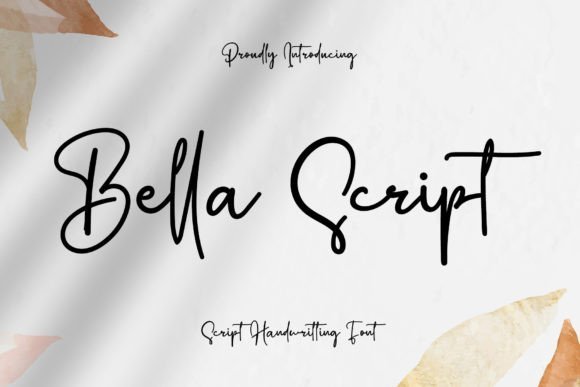
Unleash Your Creativity with the Timeless Charm of Bella Script Font
Have you ever found yourself in the midst of a creative project, struggling to find the perfect font to bring your vision to life? The blank page stares back at you, taunting you with its emptiness, until suddenly – you stumble upon it. That perfect, elegant font that elevates your design from mere mortal to masterpiece.
Enter the Bella Script Font, a delicate and flowing handwritten font that is sure to capture your heart. With its incredibly distinct and timeless style, this font is the perfect addition to any project. Whether you’re a seasoned designer or just starting out, the Bella Script Font is a valuable tool that will help you create spectacular designs that leave a lasting impression.
Bella Script Font Key Features
- Unique Characteristics: This font features elegant, flowing script letterforms with subtle flair and connection, giving it a sophisticated and refined look.
Bella Script Font Review
Overall, I’m impressed with the Bella Script font. Here’s a breakdown of what I think works well and what doesn’t.
- The font’s elegant and sophisticated feel is perfect for high-end branding and design projects.
- The script-like qualities give it a unique and personal touch, making it stand out from more traditional fonts.
- The font is highly versatile and can be used for a wide range of applications, from logos and headings to body text.
- The font may be too ornate for some projects, making it difficult to read in certain contexts.
- The font’s complexity may make it challenging to pair with other fonts, requiring careful consideration and planning.
- The font’s lack of bold and italic styles may limit its use in certain situations.
Overall, I think the Bella Script font is a great addition to any designer’s toolkit. With its unique style and versatility, it’s perfect for a wide range of projects. However, it’s essential to be mindful of its limitations and use it judiciously to ensure the best results.
Common Use Cases for Bella Script Font
Bella Script Font is ideal for use in a variety of design projects, including: